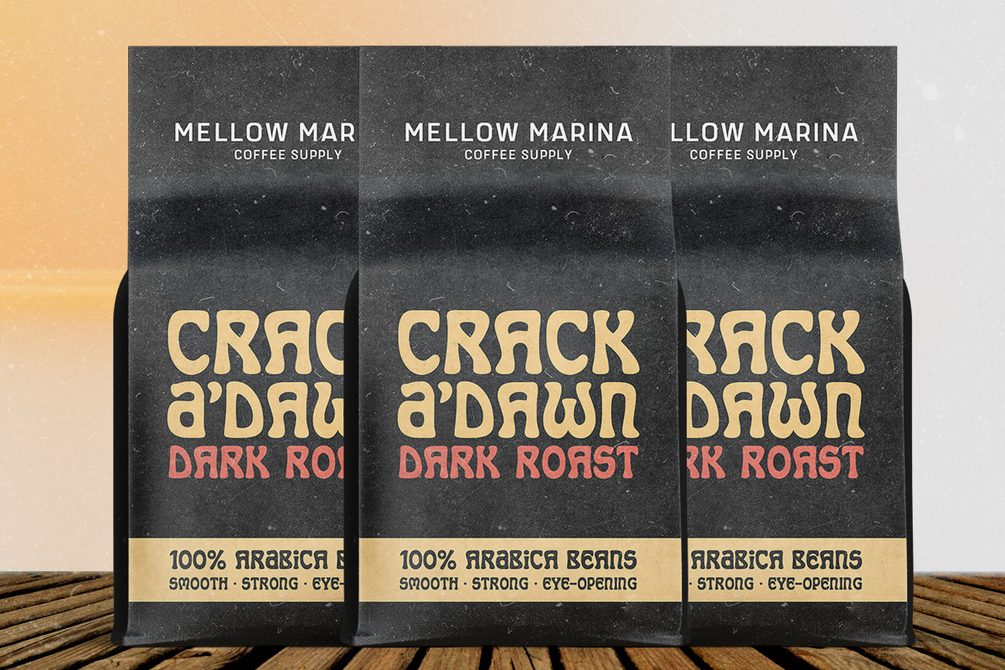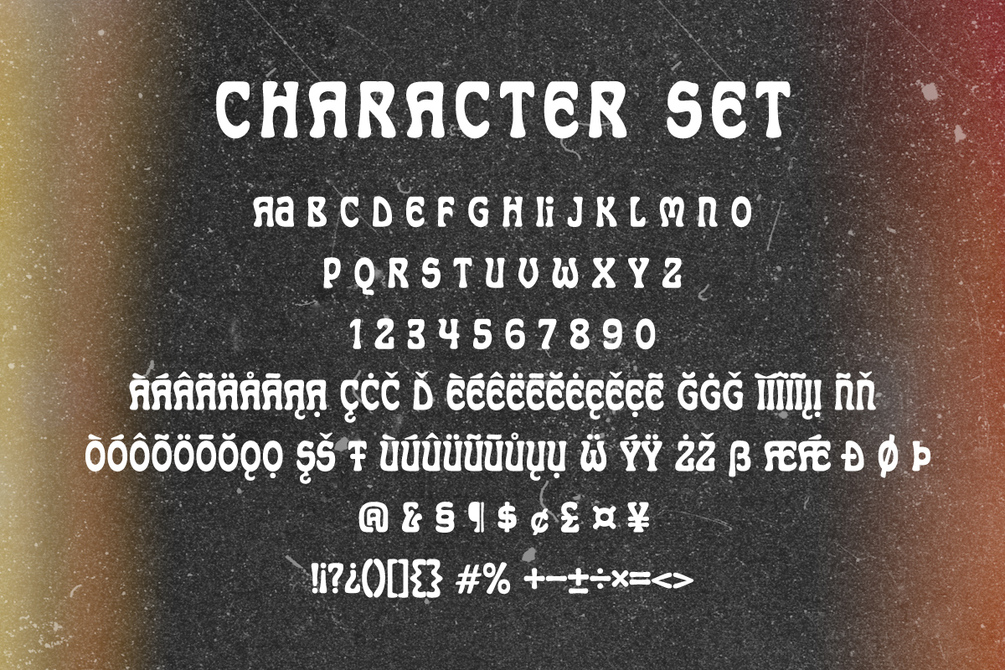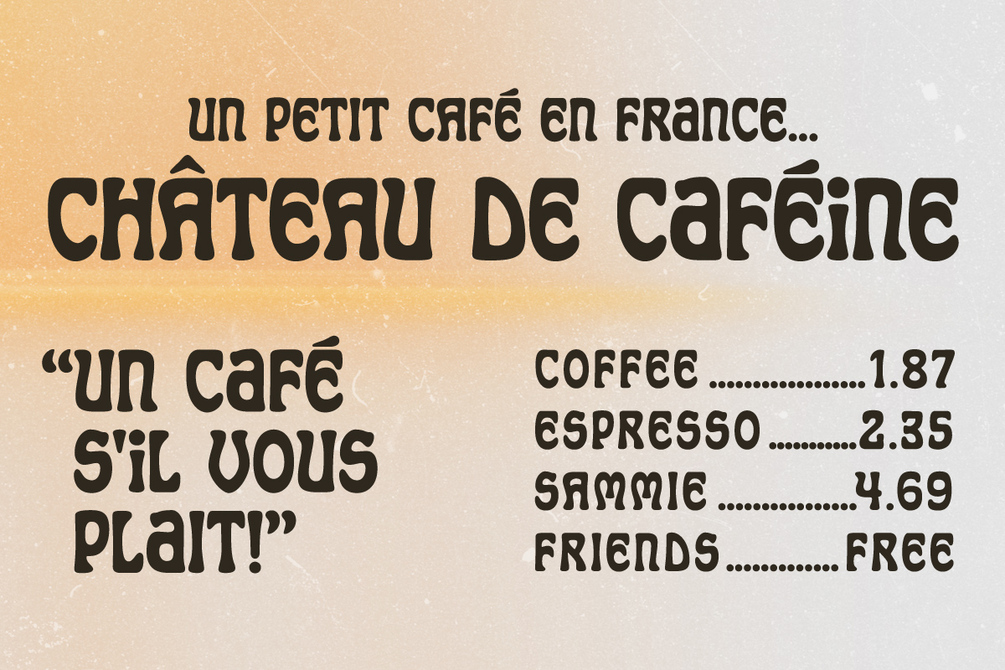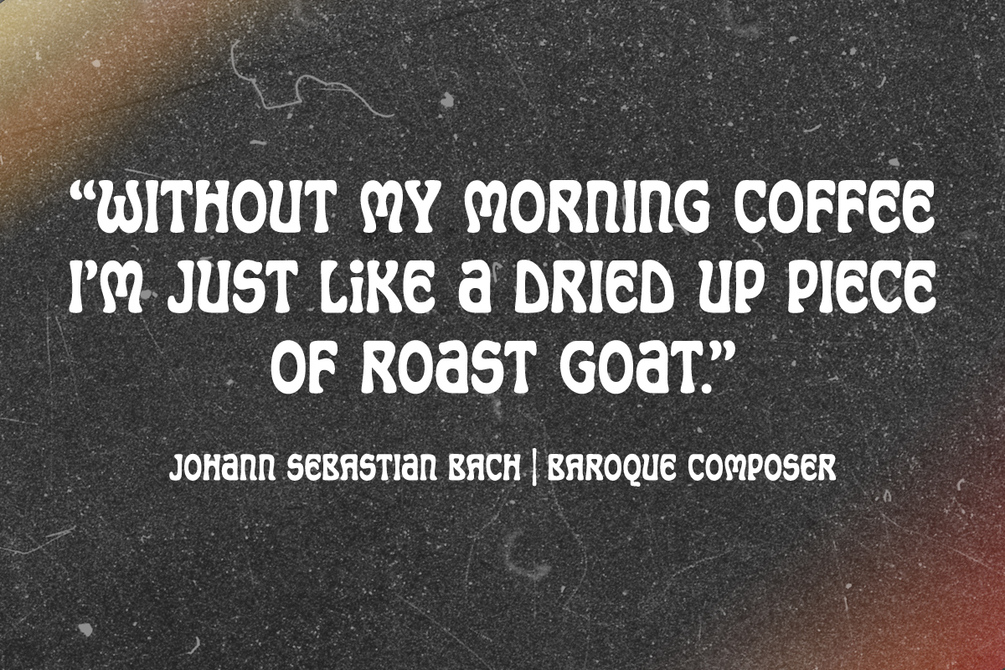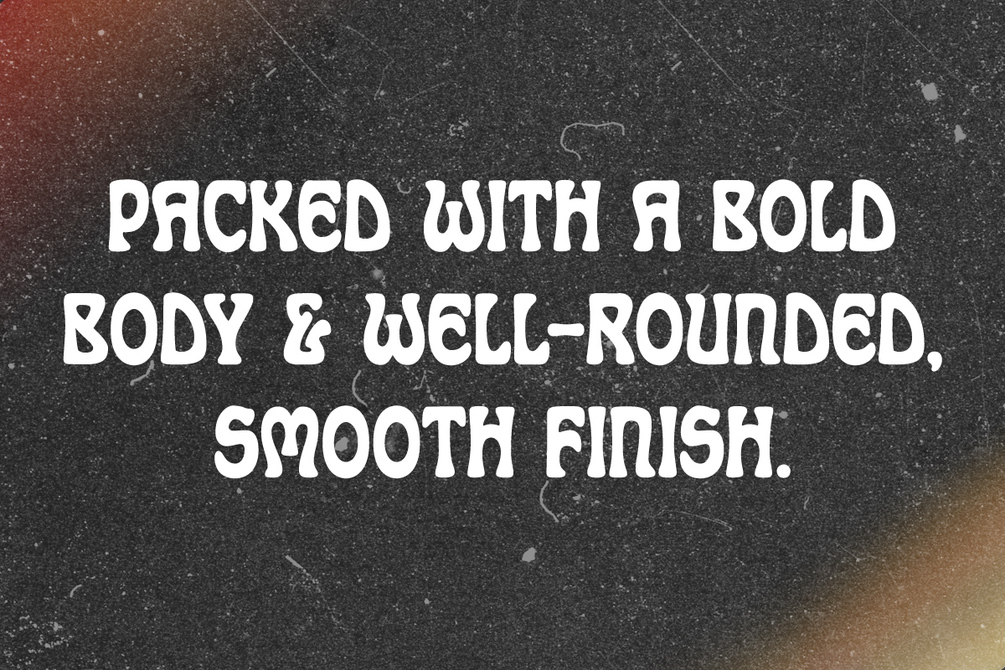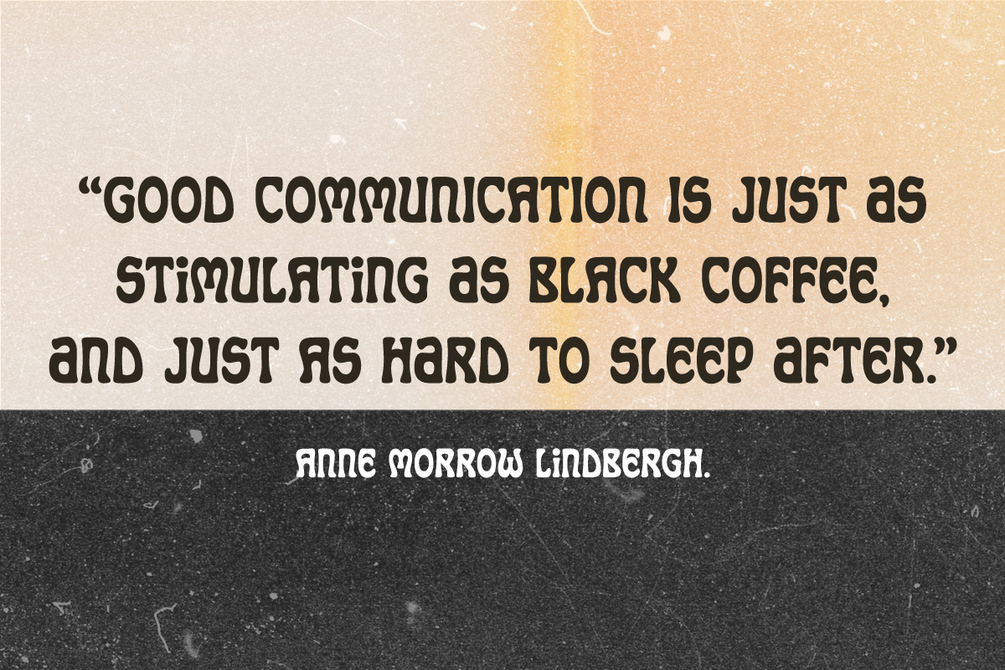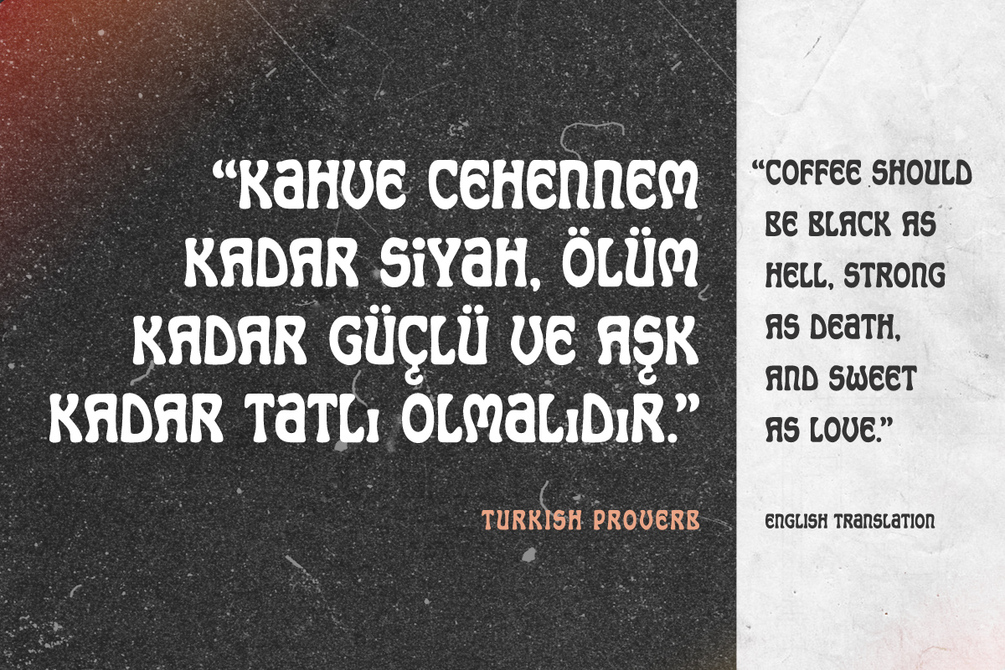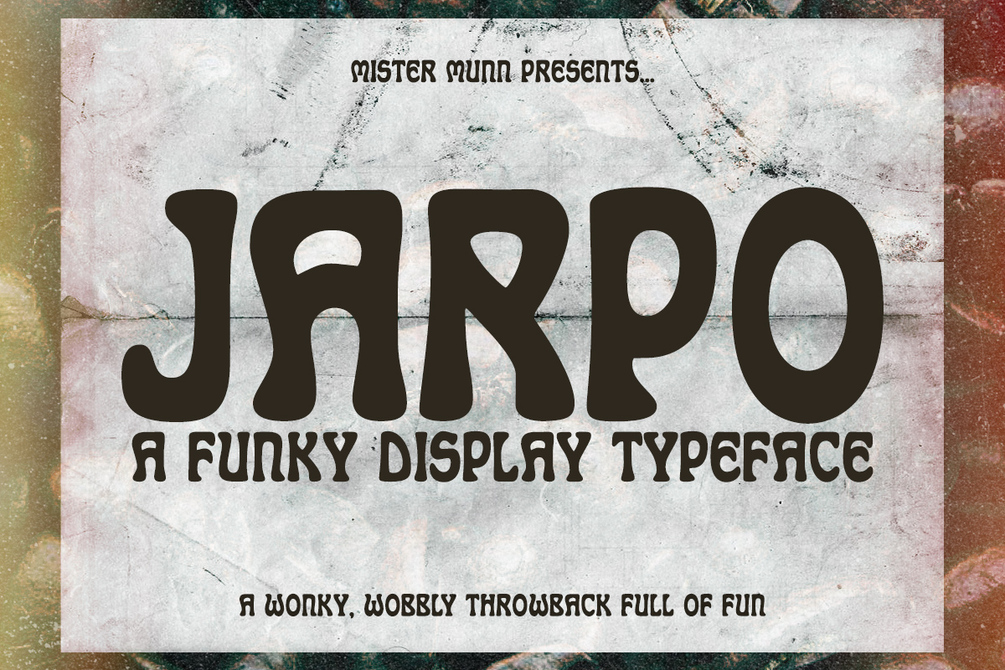
Jarpo Typeface
Jarpo is a funky all-cap revival with a few variations thrown in for extra flavor. Suitable for packaging, identity, and title treatments, Jarpo brings a fun tone to any piece of text.
Jarpo has full language support with a vast library of diacritics and can speak a number of Latin-based languages.